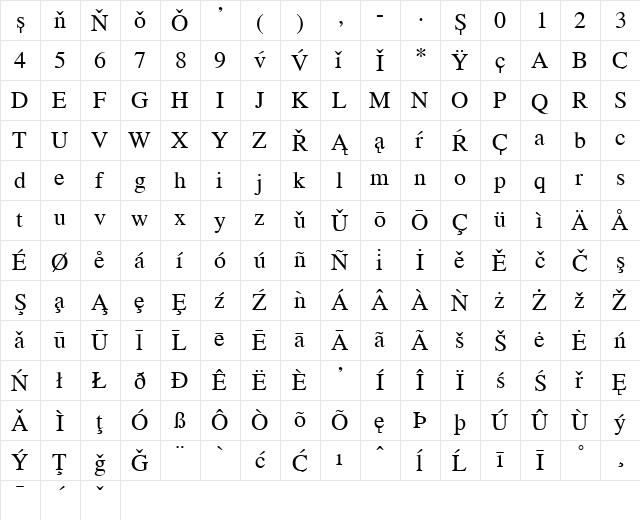
PCATimes Regular
Design Context for PCATimes Typeface
PCATimes offers clean, dependable letterforms without strong stylistic allegiance, making it a practical choice for designers who need flexibility.
Pro Tip: Pair PCATimes with a font of contrasting weight or personality to build a more expressive typographic hierarchy.